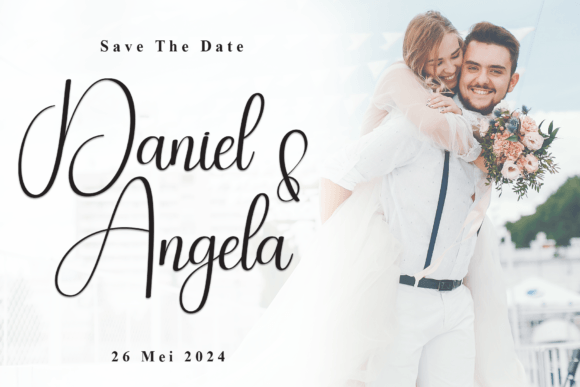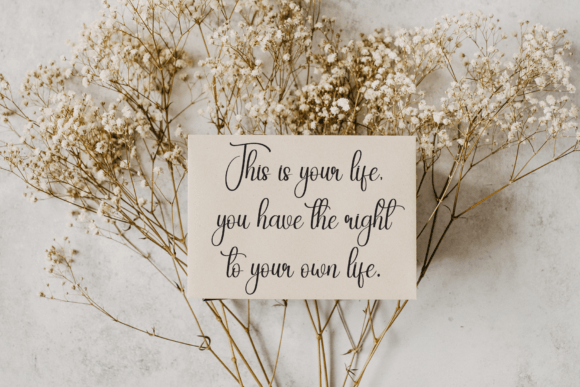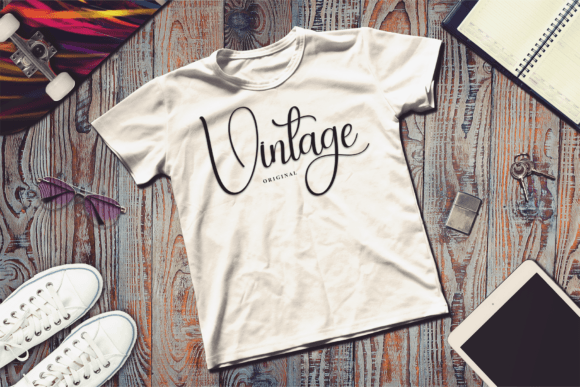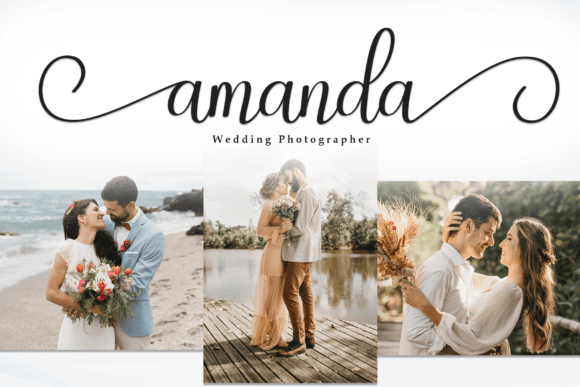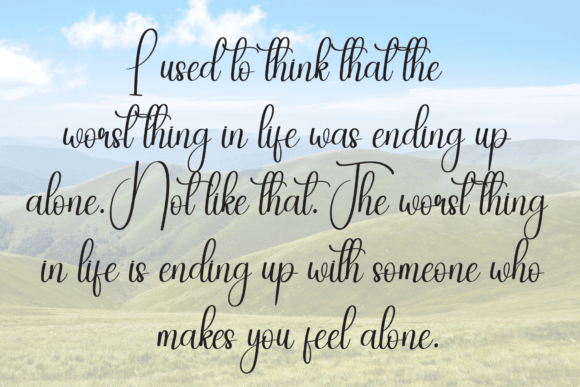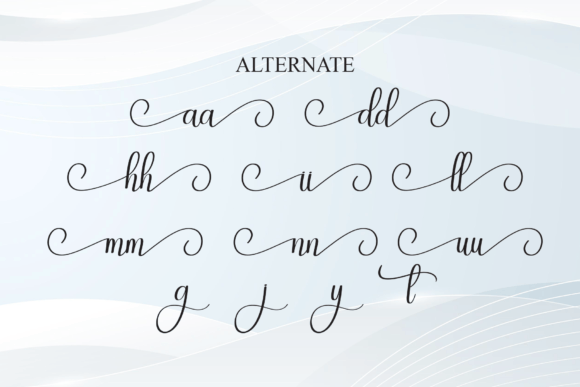
Introducing Delightful Font: The Perfect Blend of Whimsy and Elegance
Are you a designer or crafter looking for a font that adds a touch of personality to your creations? Look no further than Delightful Font, a unique and charming typeface that perfectly balances playful whimsy with distinguished elegance. In this article, we’ll explore the features and benefits of Delightful Font, and how it can elevate your designs to the next level.
The Charm of Delightful Font
Delightful Font is a one-of-a-kind typeface that is sure to capture the hearts of designers and crafters alike. Its distinct and delightful touch makes it the perfect choice for crafting wedding invitations, greeting cards, and other designs that call for a splash of fun. With its playful and whimsical feel, Delightful Font adds a touch of personality to any design, making it stand out from the crowd.
Perfectly Balanced
One of the standout features of Delightful Font is its perfect balance between playful whimsy and distinguished elegance. This balance makes it versatile and suitable for a wide range of design projects, from formal wedding invitations to playful greeting cards. Whether you’re looking to create a sophisticated and elegant design or a fun and playful one, Delightful Font is the perfect choice.
Delightful Font is a creative soul’s dream, offering endless design possibilities for crafters and designers. With its quirky and charming personality, this font is perfect for:
• Greeting cards and gift tags
• Branding and packaging design
• Any design project that requires a touch of personality and whimsy
What Sets Delightful Font Apart
So, what sets Delightful Font apart from other fonts? Here are a few key features that make it a standout:
• Unique personality: Delightful Font has a quirky and charming personality that shines through in every design.
• Versatility: This font is perfectly balanced between playful whimsy and distinguished elegance, making it suitable for a wide range of design projects.
• High-quality design: Delightful Font is designed with precision and attention to detail, ensuring a crisp and clean appearance in every design.
In conclusion, Delightful Font is a unique and charming typeface that is perfect for designers and crafters looking to add a touch of personality to their creations. With its perfect balance of playful whimsy and distinguished elegance, this font is versatile and suitable for a wide range of design projects. Whether you’re creating wedding invitations, greeting cards, or social media graphics, Delightful Font is sure to bring a smile to your face and a touch of magic to your designs.